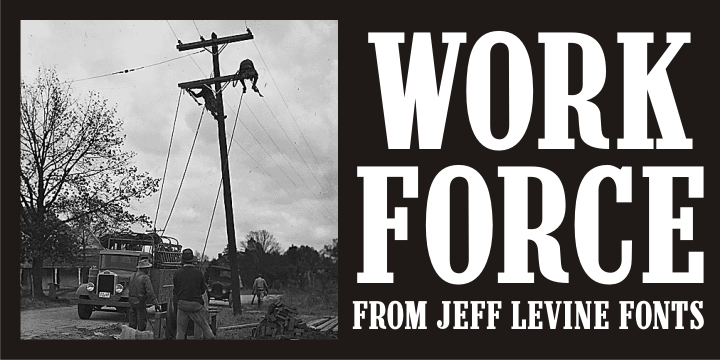
The Work Force JNL Font is perfect for industrial company branding, construction site signage, manufacturing facility graphics, labor union materials, blue-collar job boards, safety instruction manuals, heavy machinery documentation, workshop training materials, industrial equipment labeling, and workforce development programs.
What makes the Work Force JNL Font exciting is its powerful ability to embody the strength, reliability, and honest craftsmanship of America's working class through bold, no-nonsense letterforms that represent the backbone of industrial productivity. This robust typeface features sturdy construction, utilitarian proportions, and work-hardened character variations that instantly convey dedication, teamwork, and the unwavering commitment of skilled laborers who build and maintain our modern world. Each letter represents the dignity of honest work and the pride of professional craftsmanship.
The Work Force JNL Font family includes regular, bold, condensed, and stencil versions, along with industrial symbols, safety icons, and labor-themed decorative elements that enhance its blue-collar appeal across various manufacturing and construction design applications.
Whether you're creating industrial training materials or designing blue-collar brand identities, Work Force JNL Font Free Download delivers maximum impact and authentic workforce credibility. Its expertly built letterforms ensure clear readability while maintaining that essential working-class character that resonates with skilled laborers and industrial professionals. The font's industrial features include contextual alternates, safety-focused ligatures, and workforce variations that automatically create authentic manufacturing aesthetics. Industrial trainers and blue-collar brand specialists consistently choose this font for projects requiring genuine labor authenticity and working-class appeal. The Work Force JNL Font transforms standard text into powerful declarations of industrial strength, making it an indispensable tool for any designer's blue-collar typography toolkit.